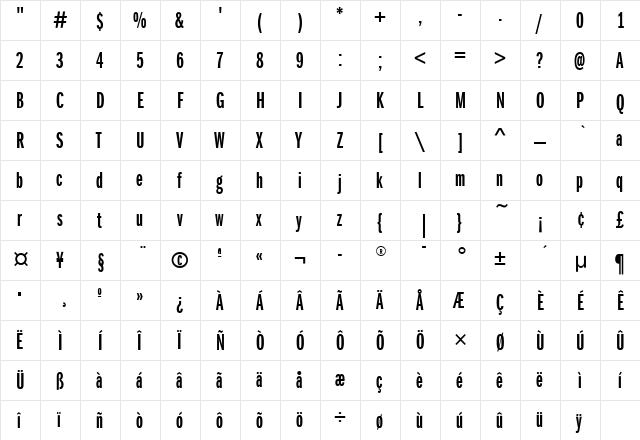
FranklinGotXCmpITC Demi Font Preview
FranklinGotXCmpITC Demi
Design Context for FranklinGotXCmpITC Typeface
FranklinGotXCmpITC is a composed and adaptable typeface that performs quietly and consistently across a wide range of design contexts.